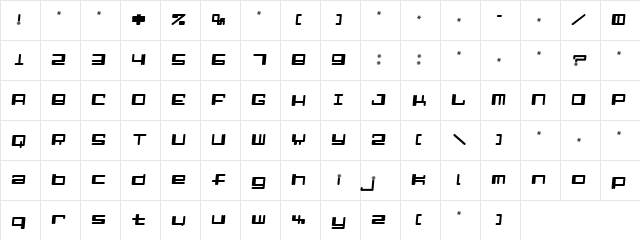
Alpha Niner i Regular
Design Context for Alpha Niner i Typeface
Alpha Niner i takes a measured approach to typography — its balanced proportions and neutral character make it a reliable workhorse for both digital and print work.